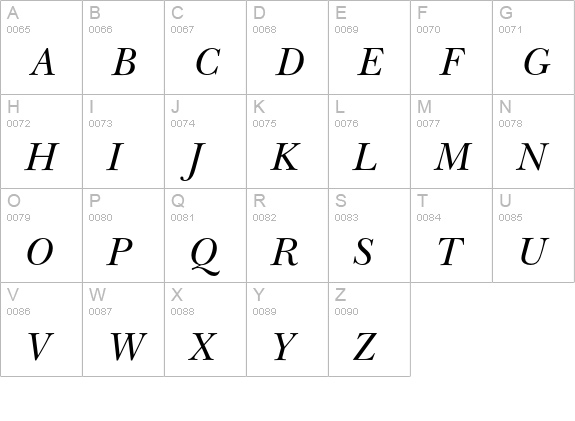
NewBaskervilleEF-Italic is a distinctive, italic variant in the NewBaskervilleEF typeface family \xE2\x80\x94 well suited to design and typography projects.
NewBaskervilleEF-Italic is a classic and elegant font that exudes sophistication and timeless beauty. Its slanted design adds a touch of flair and creativity to any text, making it perfect for projects that require a touch of sophistication. The delicate curves and fine details of NewBaskervilleEF-Italic make it a versatile choice for a variety of design projects, from invitations to branding materials. The best part? NewBaskervilleEF-Italic is available for free download at FontsMarket.com, making it accessible to everyone looking to enhance their designs with a touch of elegance and style. Whether you're a designer, a student, or a hobbyist looking to elevate your projects, NewBaskervilleEF-Italic is the perfect choice for adding a touch of class to your work. Download it today and elevate your designs with this beautiful and timeless font.